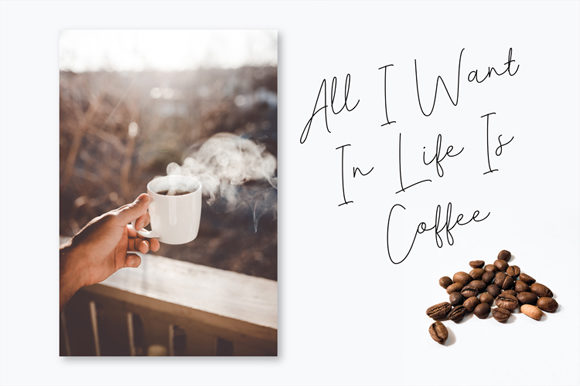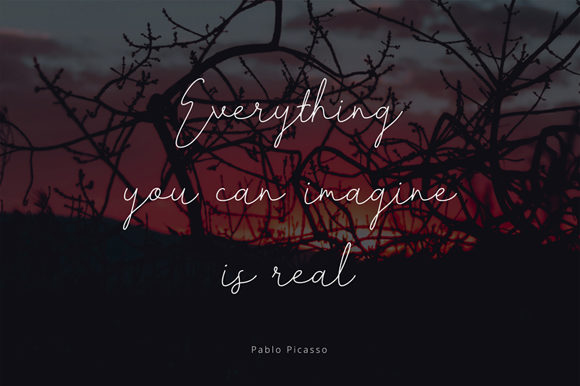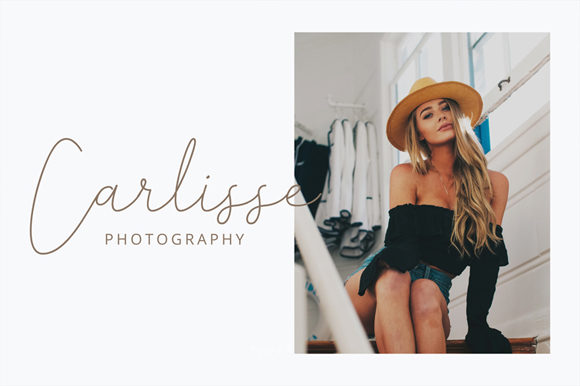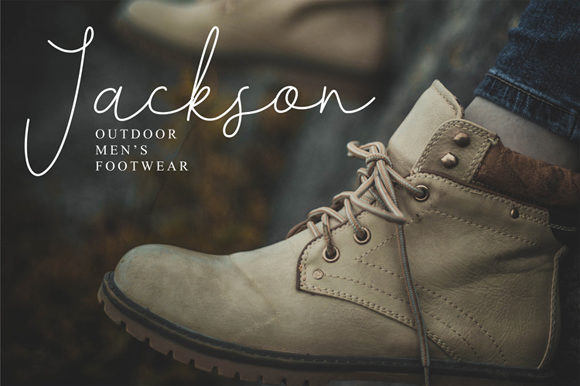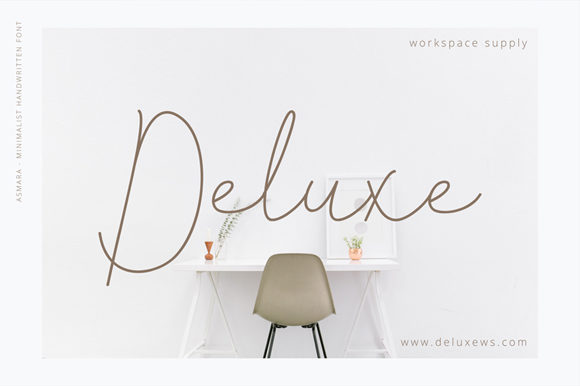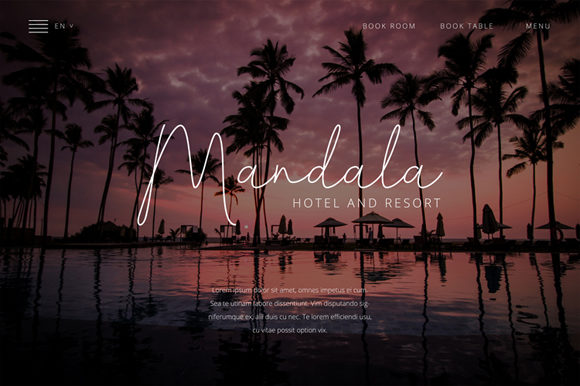
Discover the Elegance of Asmara Font: Elevate Your Designs with a Beautiful Handwritten Style
Are you on the hunt for a font that adds a touch of elegance and sophistication to your designs? Look no further than the Asmara Font. This stunning handwritten font is perfect for designers and crafters who want to create beautiful, eye-catching visuals that stand out from the crowd. With its clean, thin, and smooth vibe, Asmara Font is sure to be a hit with any design you add it to.
What Makes Asmara Font So Special?
Asmara Font is a unique and versatile font that is suitable for a wide range of design projects. Whether you’re working on branding, product packaging, invitations, quotes, t-shirts, labels, posters, or logos, this font is sure to impress. Its elegant and refined style makes it perfect for designs that require a touch of sophistication and glamour.
Key Features of Asmara Font
- Clean and Thin Design: Asmara Font features a clean and thin design that gives it a smooth and elegant look.
- Handwritten Style: This font has a beautiful handwritten style that adds a personal touch to your designs.
- Versatile: Asmara Font is suitable for a wide range of design projects, from branding and packaging to invitations and posters.
- Elegant and Refined: This font has an elegant and refined style that makes it perfect for designs that require a touch of sophistication.
How to Use Asmara Font in Your Designs
Asmara Font is easy to use and can be incorporated into a variety of design projects. Here are a few ideas to get you started:
- Branding: Use Asmara Font to create elegant and sophisticated brand logos, business cards, and letterheads.
- Product Packaging: Add a touch of elegance to your product packaging with Asmara Font. It’s perfect for labels, tags, and packaging materials.
- Invitations: Create beautiful and elegant invitations for weddings, parties, and other special events with Asmara Font.
- Quotes and Posters: Use Asmara Font to create inspiring quotes and posters that feature a touch of elegance and sophistication.
- T-Shirts and Merchandise: Add a personal touch to your t-shirts and merchandise with Asmara Font. It’s perfect for creating unique and eye-catching designs.
Why Designers and Crafters Love Asmara Font
Asmara Font has become a favorite among designers and crafters due to its unique and versatile style. Here are a few reasons why:
- Unique Style: Asmara Font has a unique and elegant style that sets it apart from other fonts.
- Easy to Read: This font is easy to read and understand, making it perfect for designs that require a clear and concise message.
- Customizable: Asmara Font can be customized to fit your design needs. You can adjust the size, color, and style to create a unique look.
- High-Quality: This font is of high quality and is perfect for professional designs.
In conclusion, Asmara Font is a beautiful handwritten font that is perfect for designers and crafters who want to add a touch of elegance and sophistication to their designs. With its clean, thin, and smooth vibe, this font is sure to be a hit with any design you add it to. Whether you’re working on branding, product packaging, invitations, quotes, t-shirts, labels, posters, or logos, Asmara Font is a versatile and elegant choice. So why wait? Download Asmara Font today and elevate your designs to the next level!